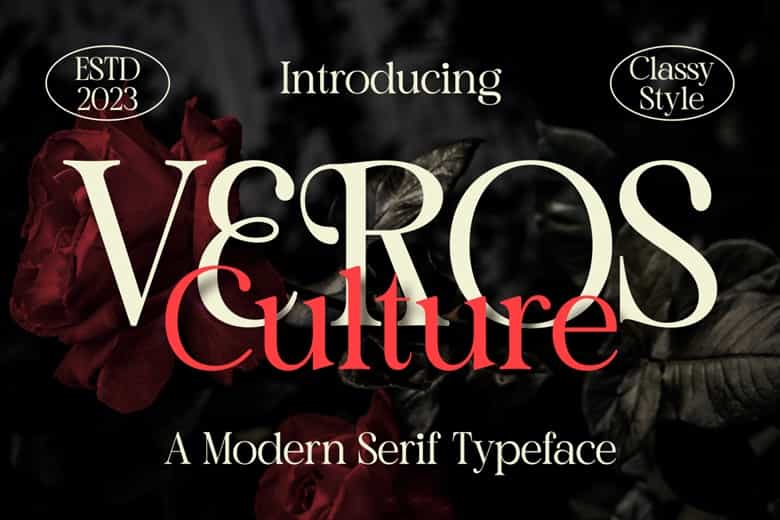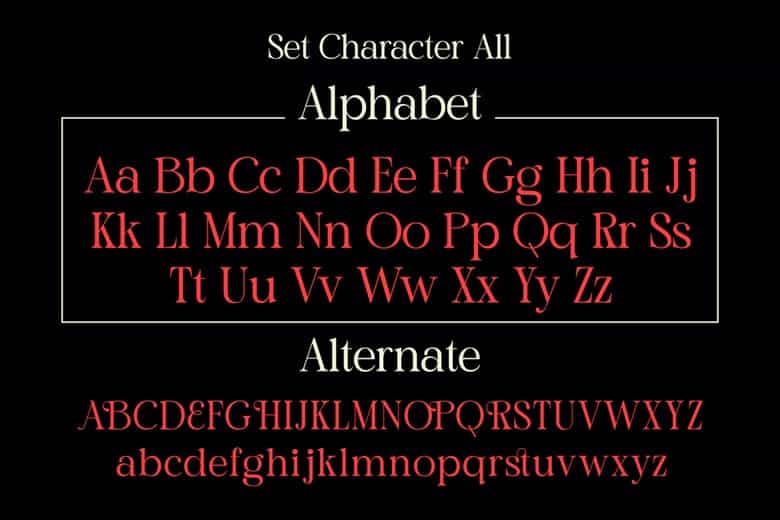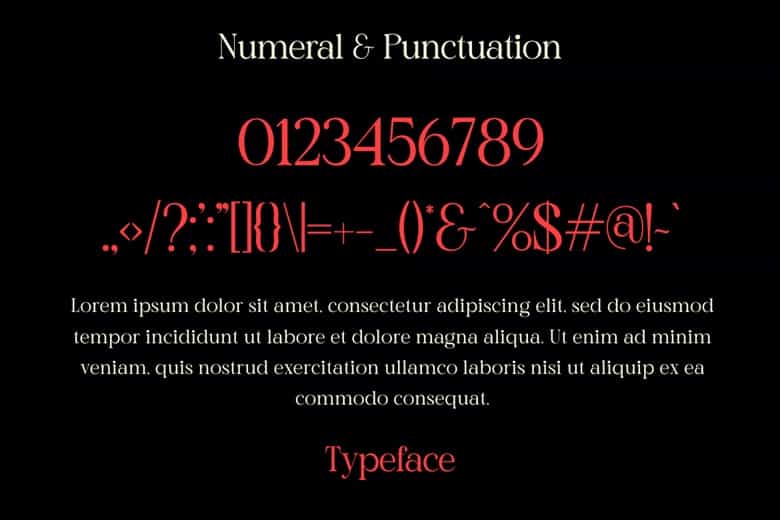
Veros Culture is a modern serif typeface, that gives an impression of refinement and sophistication.. Not too thin and not too thick, not too light and not too dark, Florania was created to help make your creations beautiful.